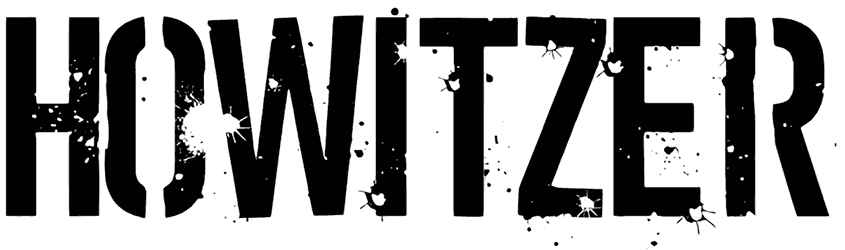
Howitzer Font
Its military design is noticeable beyond the bounds; traces of shooting at each of the letters make it ideal for highlighting many posters, movies, or other graphics with actions and war genres. Don’t worry about the missing lowercase of Howitzer; this war font can preserve its worth in many statues, especially military displays, when you desire your layout to stand above with its sturdy design.
Howitzer, military inspired font.